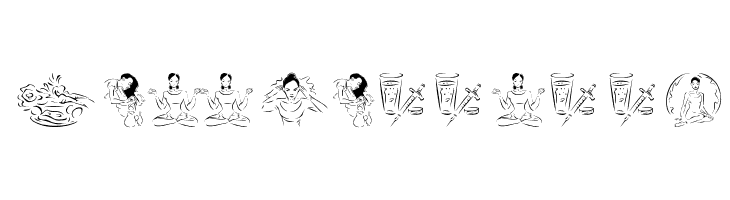
Illustrative dingbat font with diverse, detailed graphics.
Hand-drawn wellness-themed pictogram display set.
An artistic and decorative font with intricate silhouette illustrations.